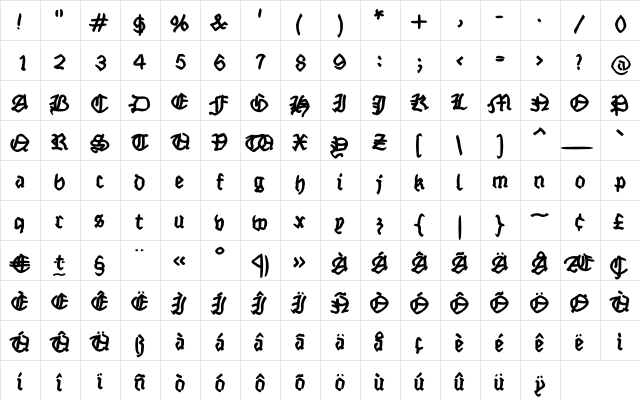
FraktSketchFS Regular
Design Context for FraktSketchFS Typeface
FraktSketchFS is a composed and adaptable typeface that performs quietly and consistently across a wide range of design contexts.